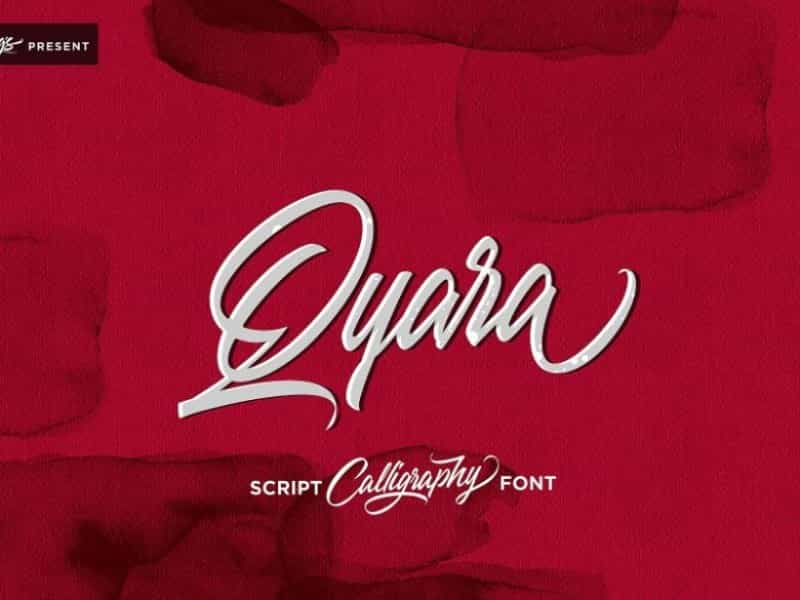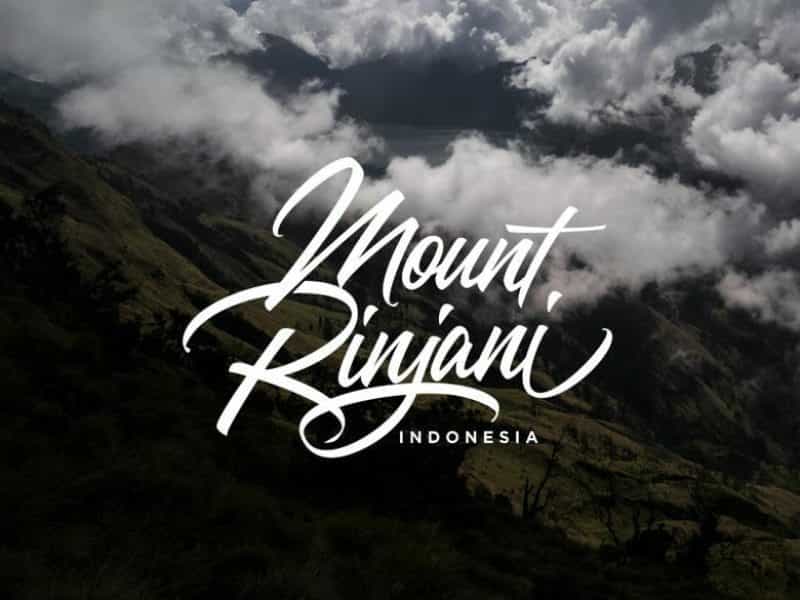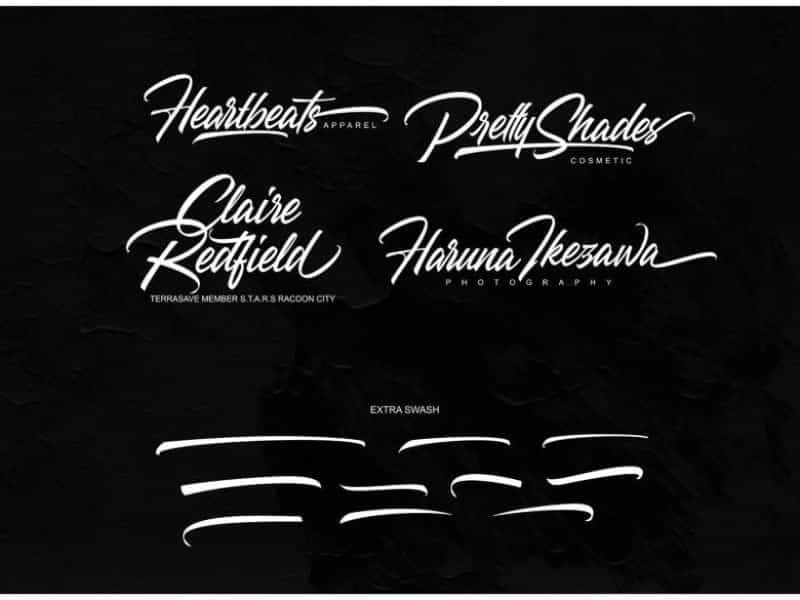
Introducing Qyara Font. Qyara is a Script Calligraphy Typeface which is handwritten with an elegant style. These fonts are perfect for different designs such as Logo, Product, Stationary, clothing brand and much more.